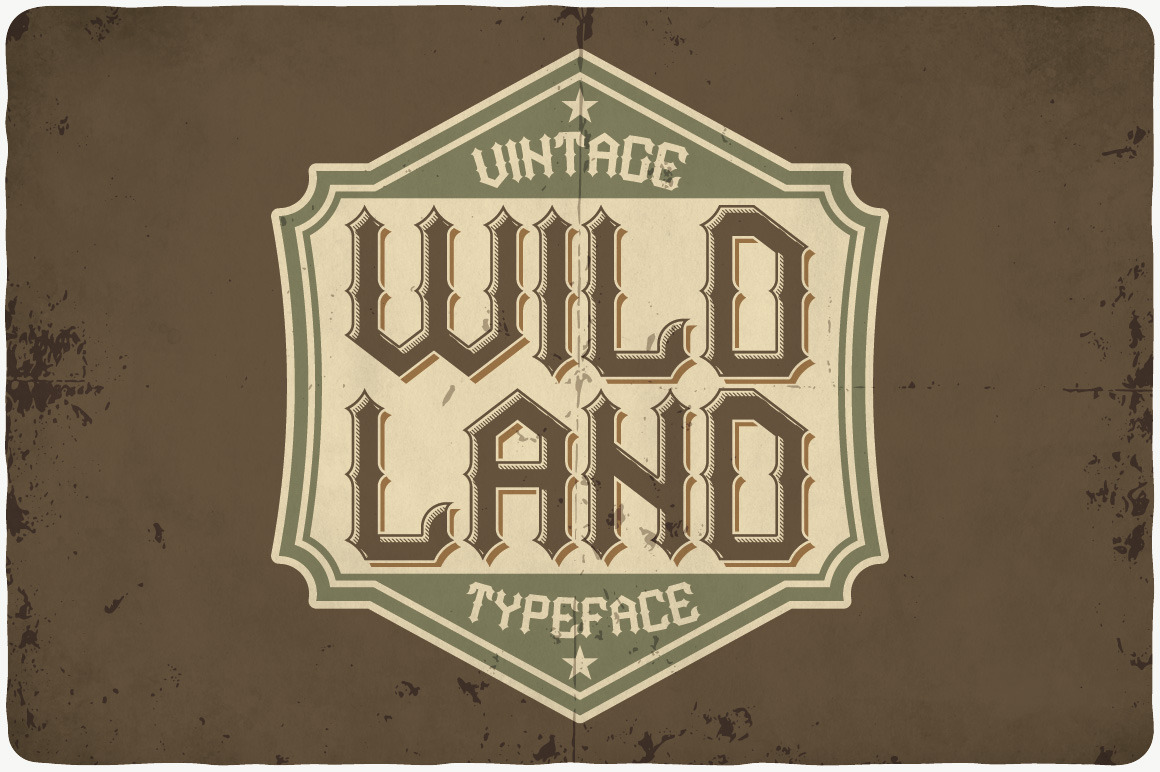
Wild Land typeface
Introducing a vintage look label typeface named "Wild Land". This typeface includes four styles, for sample look at 5th preview. Typeface will good viewed on any yours design.